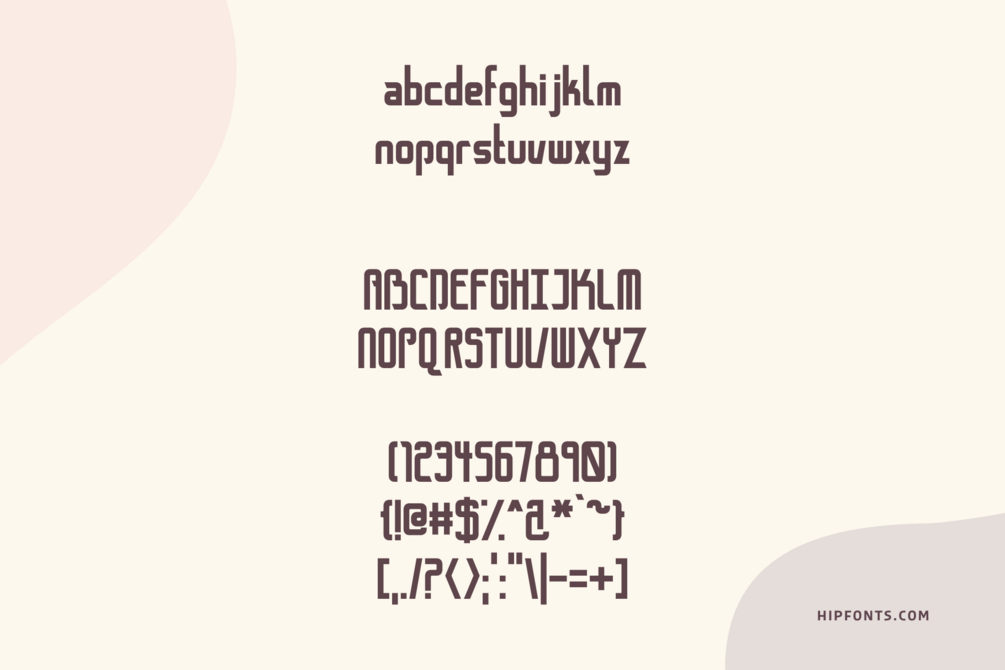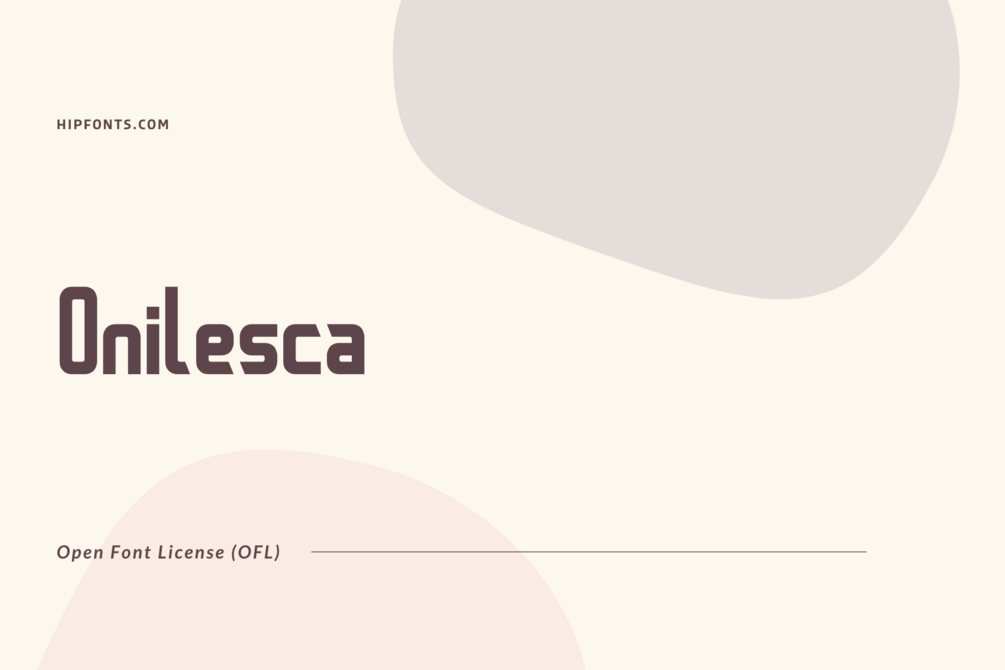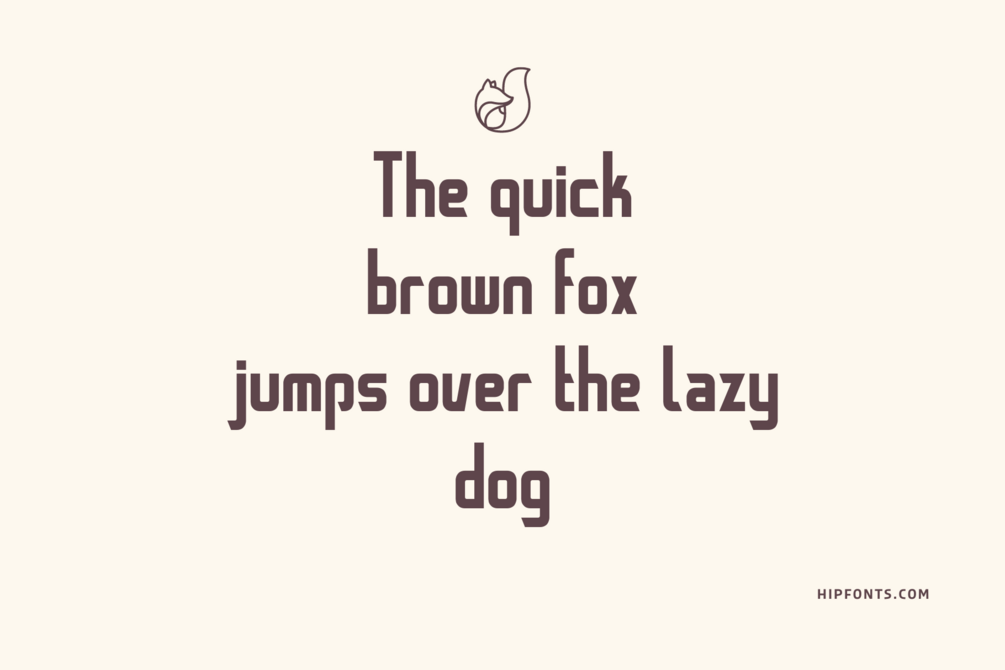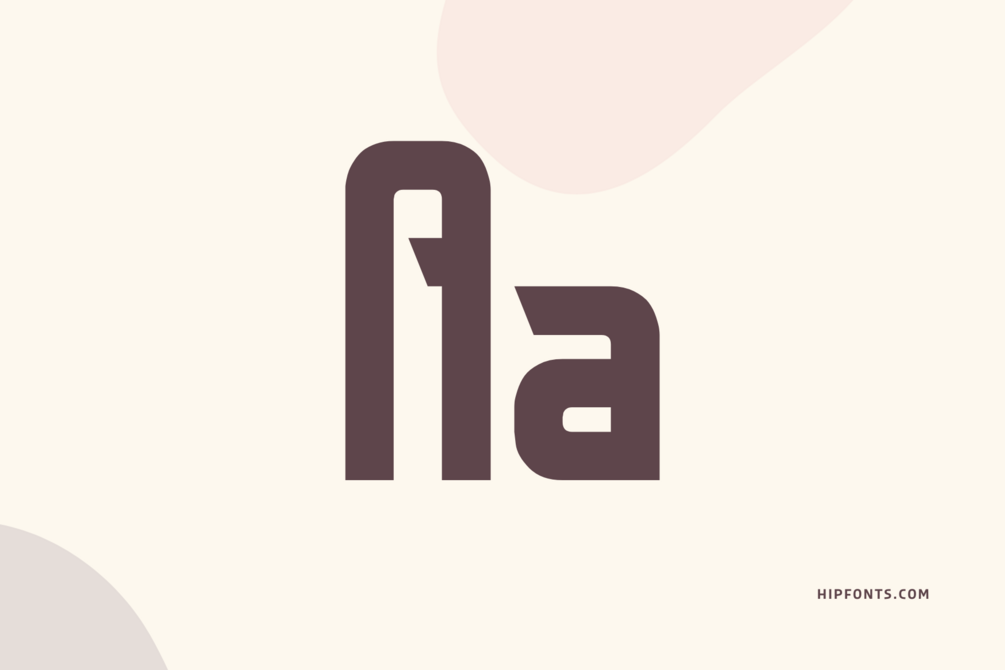
Onilesca
Onilesca is a captivating font that demands attention with its bold and striking design. Its strong letterforms and unique style make it a perfect choice for projects that require a touch of originality and personality.
With its geometric shapes and clean lines, Onilesca exudes a modern and sophisticated aesthetic that is both visually appealing and highly versatile.
This font shines in various design applications, from branding and logo design to headlines and promotional materials. Its distinct character and impactful presence help create memorable and engaging designs. Whether you're looking to add a touch of edginess to your branding or want to make a bold statement with your typography, Onilesca is sure to deliver.